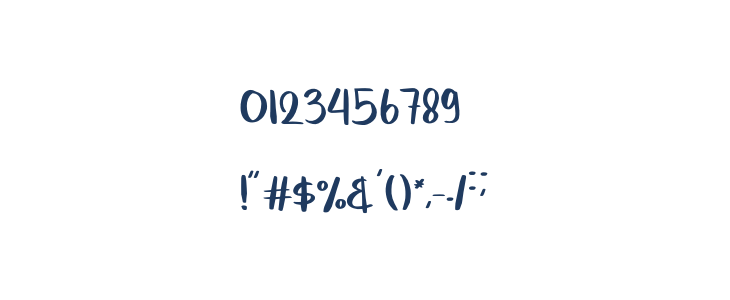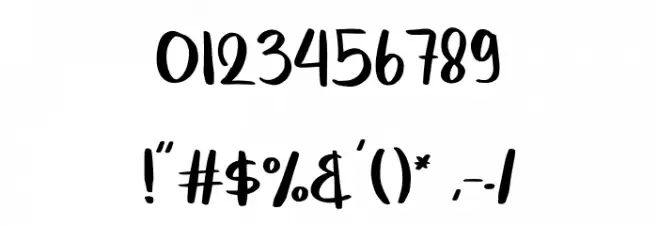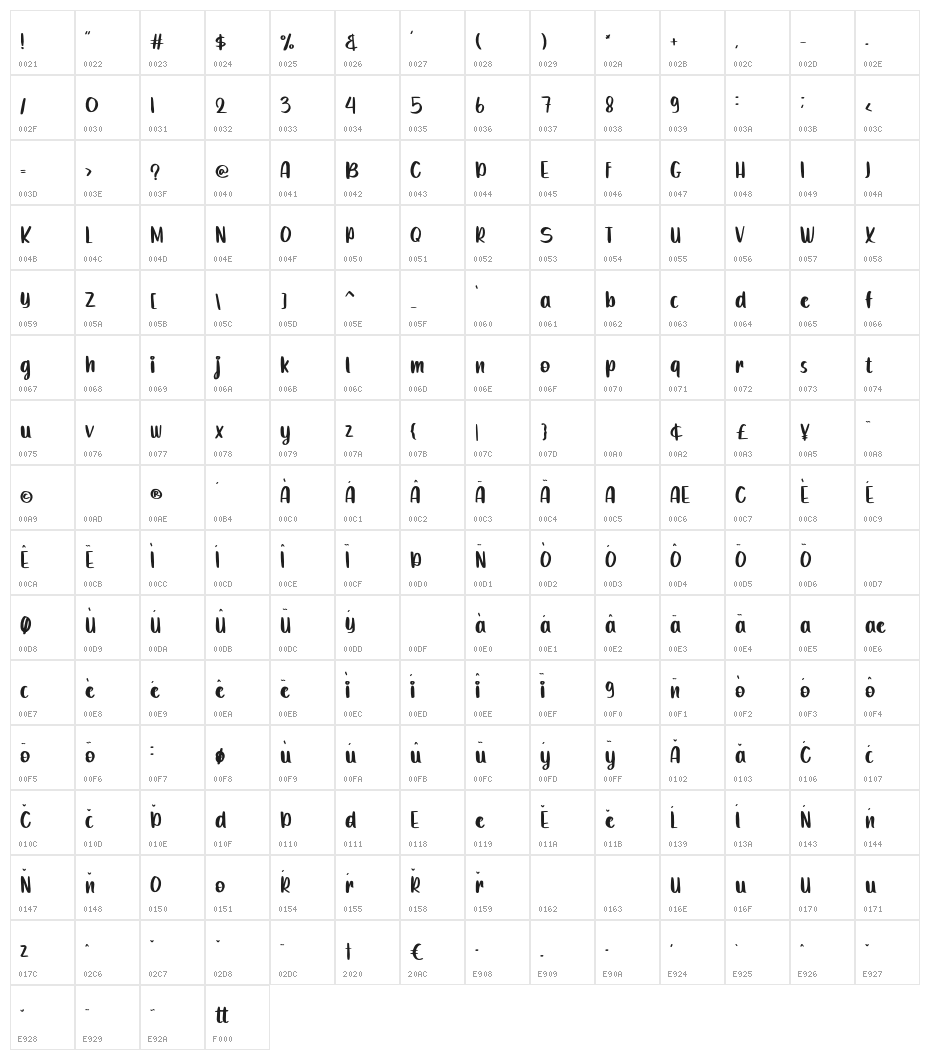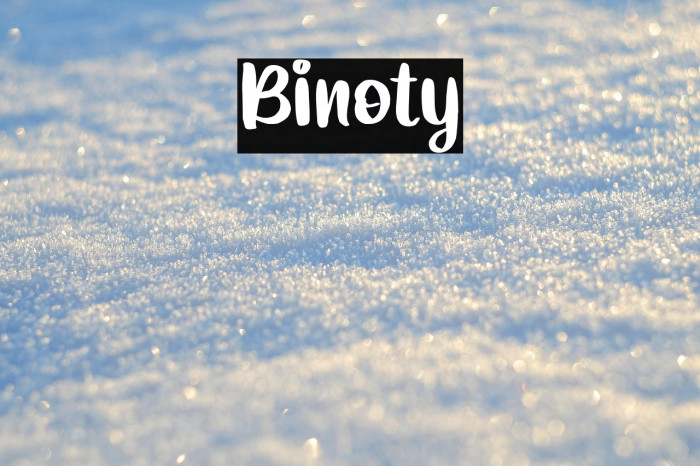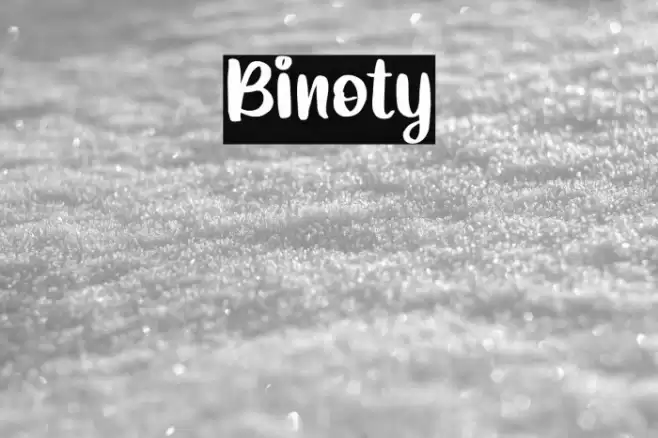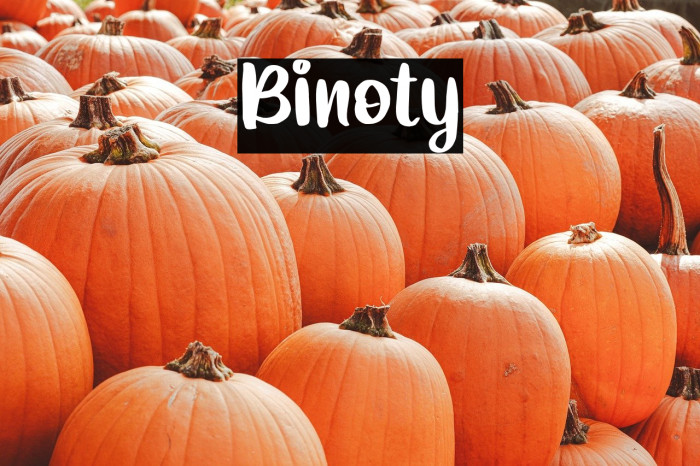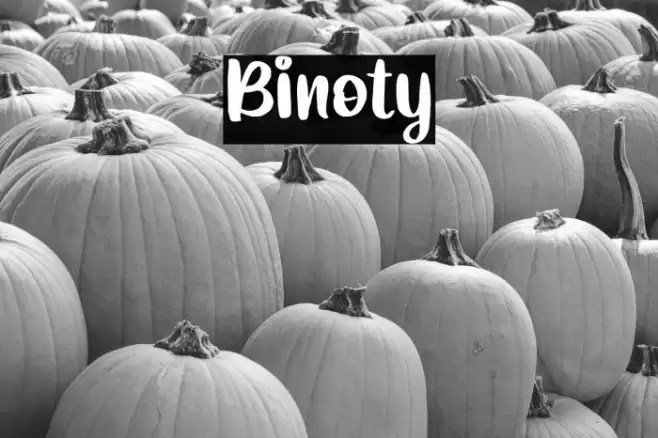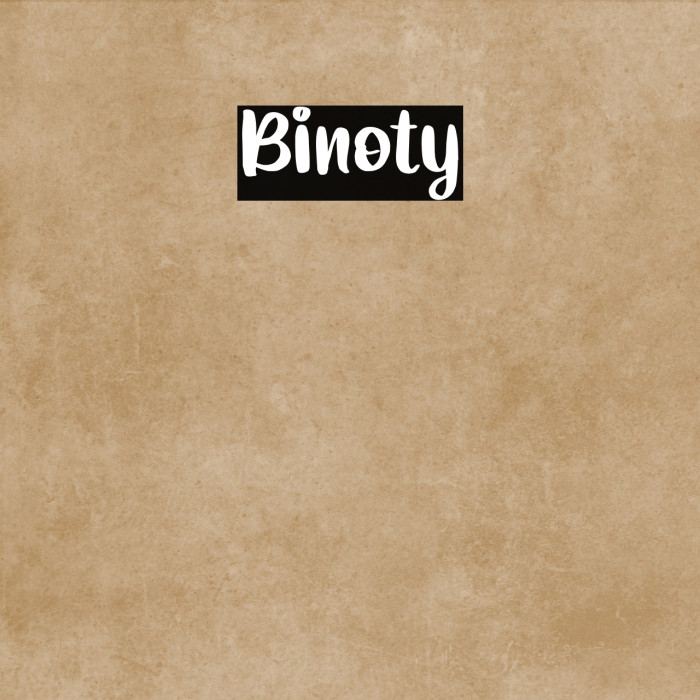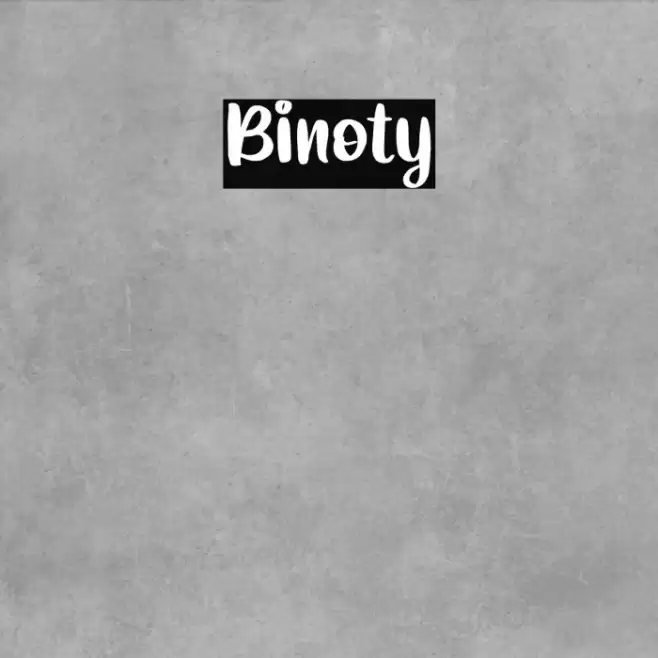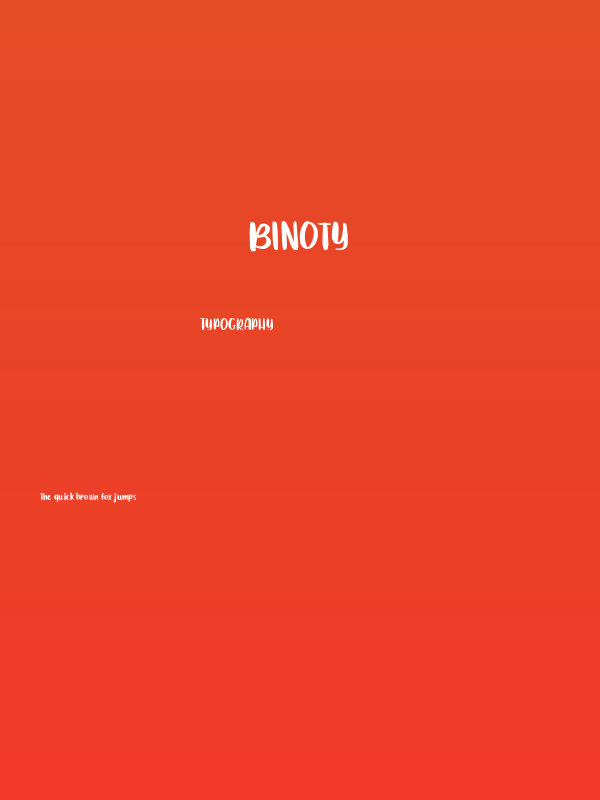
Binoty Font
Binoty Description
This font features a playful and energetic style with a handwritten appearance. The characters are bold and slightly irregular, giving them a lively and informal feel. The strokes are thick and rounded, contributing to a friendly and approachable look. The uppercase and lowercase letters maintain a consistent style, with the lowercase letters having a slightly more whimsical touch. The numbers and special characters are designed to match the overall playful aesthetic, making this font suitable for creative and casual projects.
| Proposed Projects | Ideal for greeting cards, children's books, playful branding, and social media graphics. |